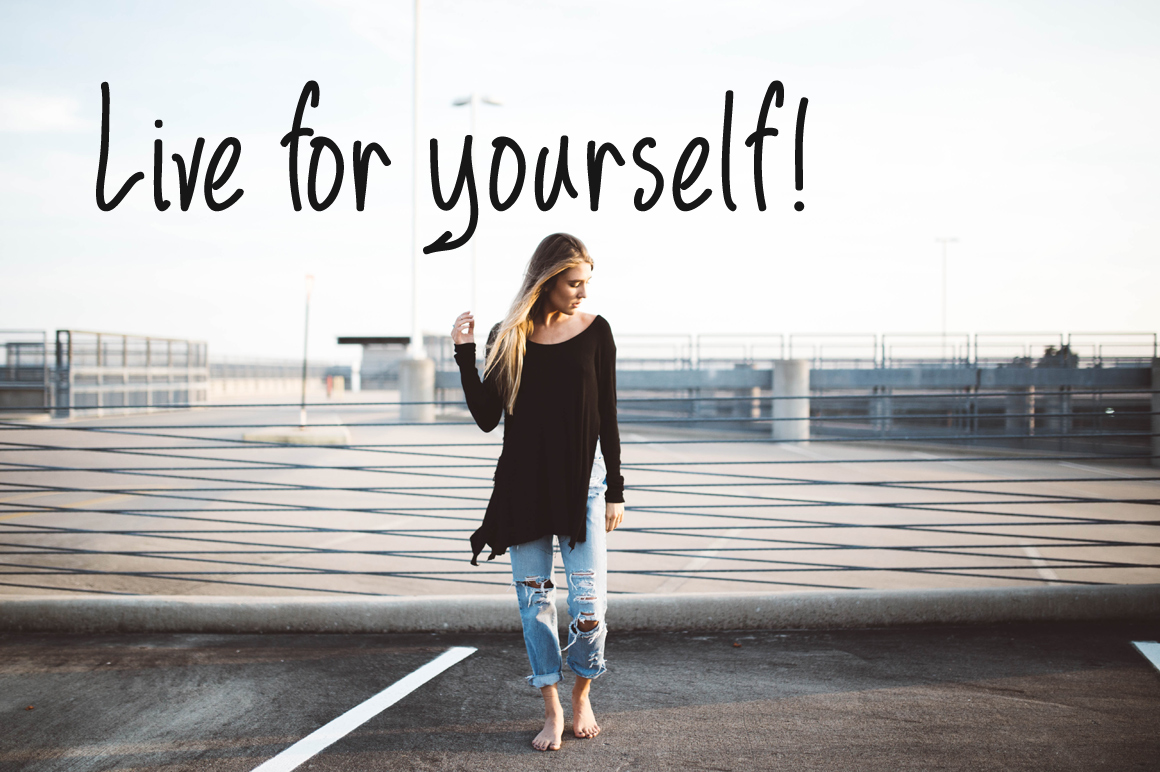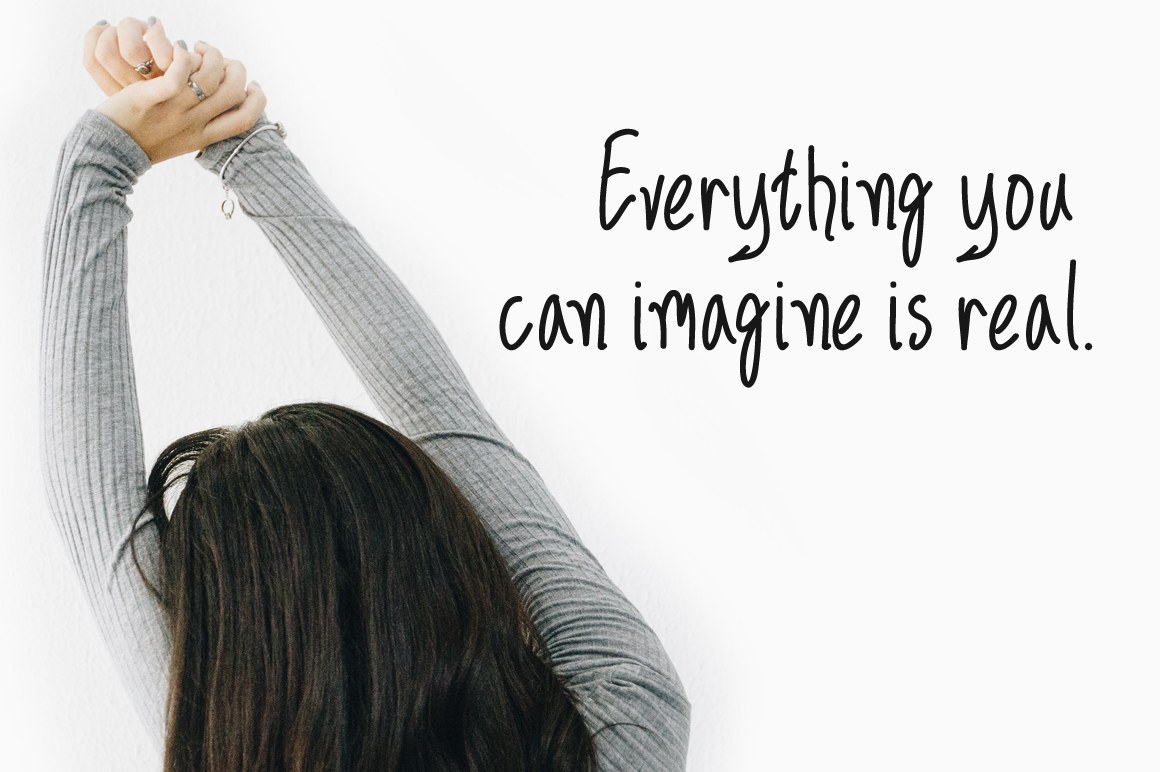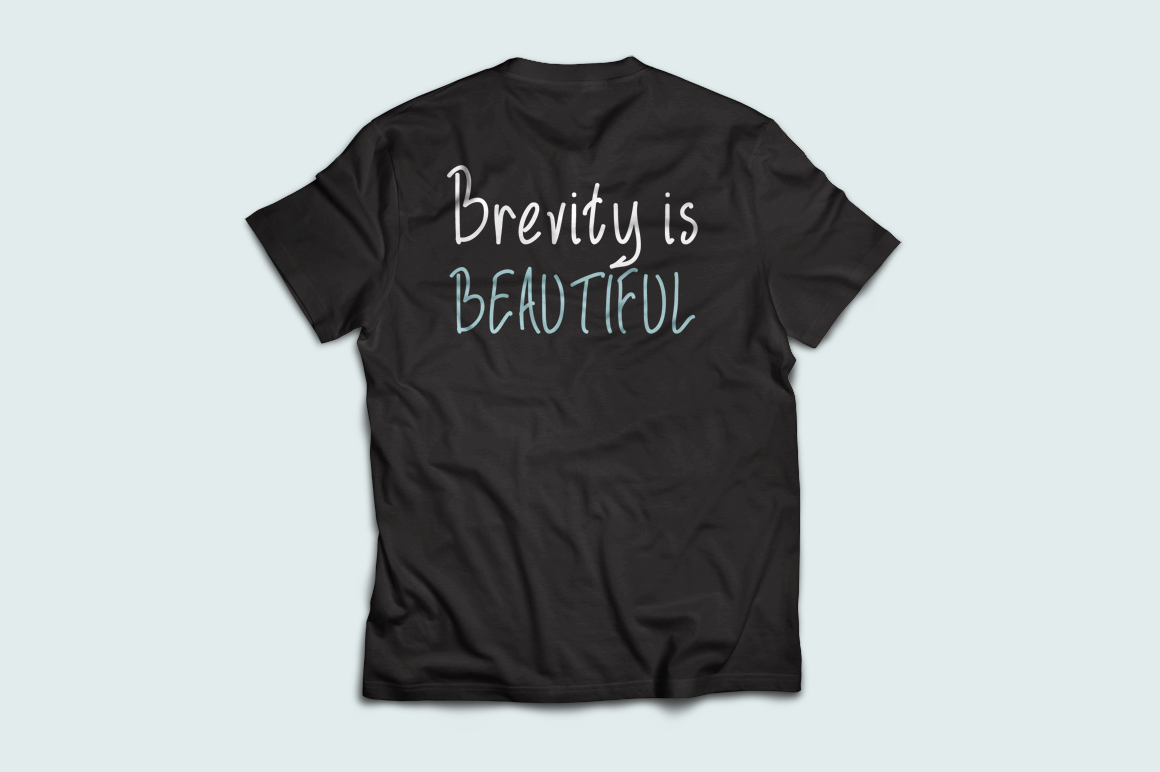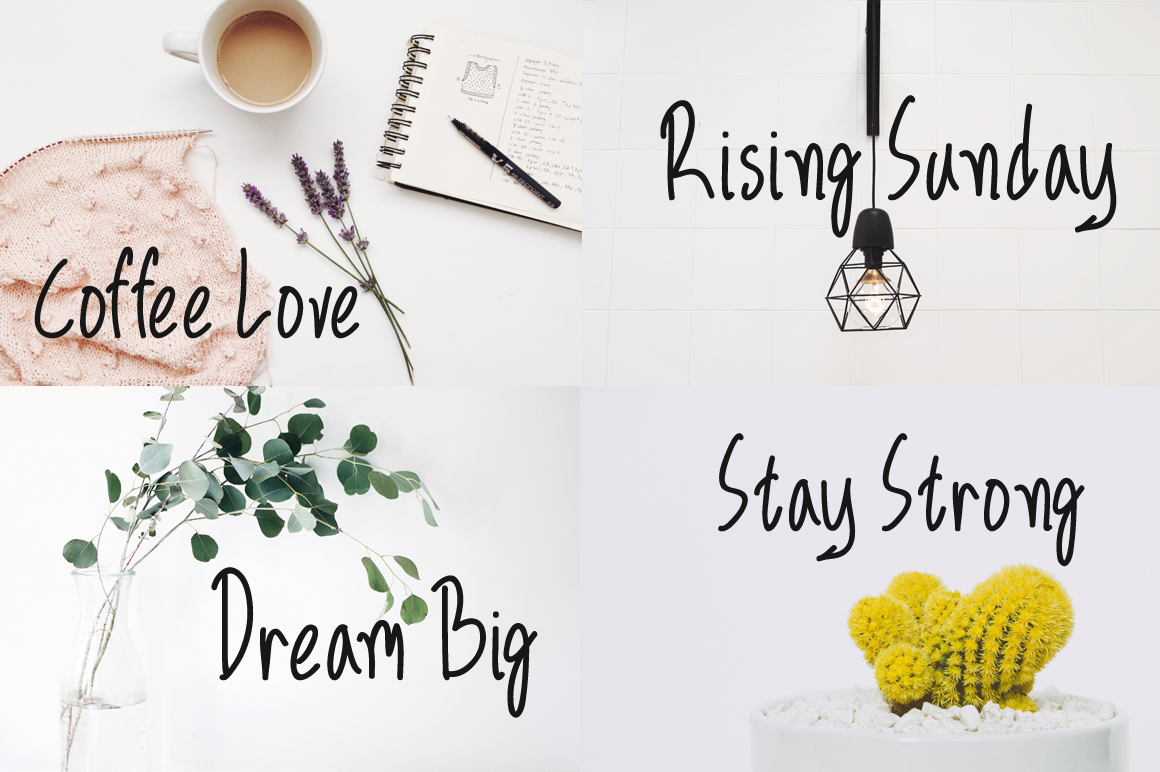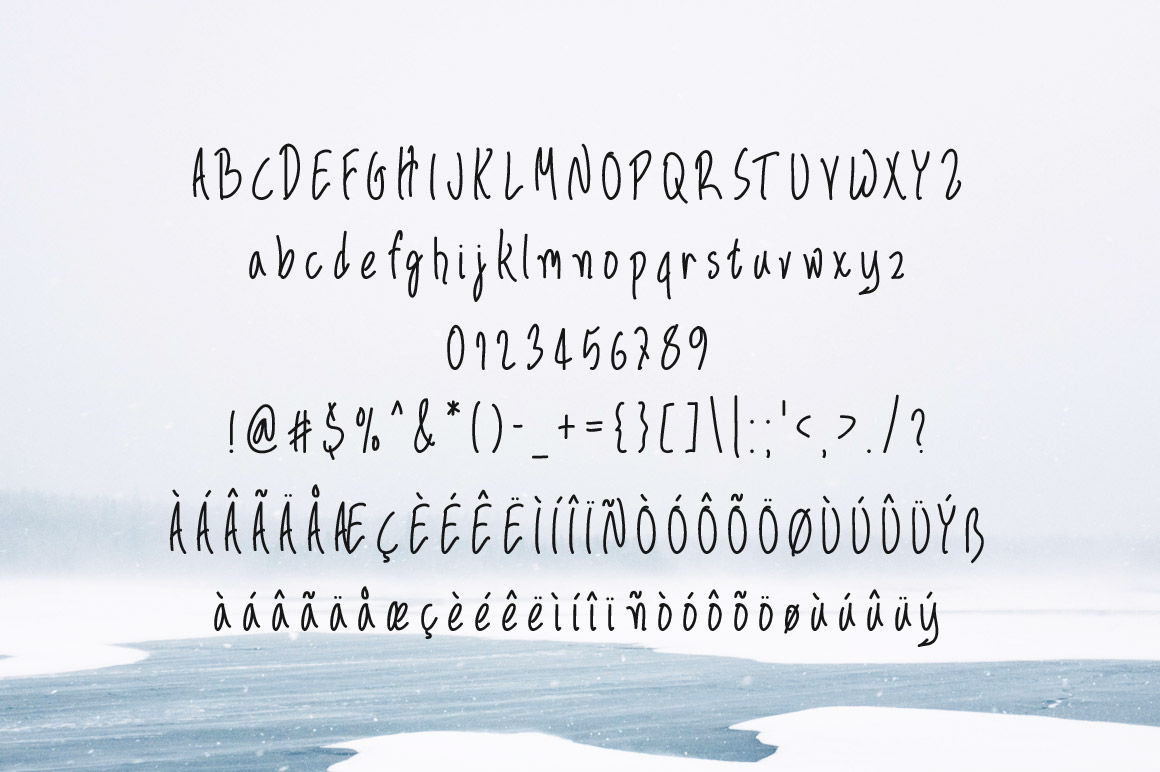
Introduction to Salley Above All Font
Salley Above All is a friendly and airy font, suitable for a wide range of projects and applications.
This handwritten sans serif font looks great on apparel and in headlines, making it both versatile and reliable .